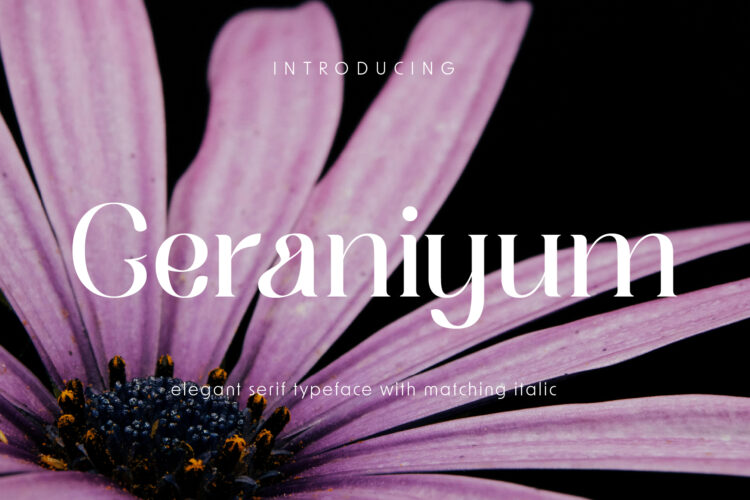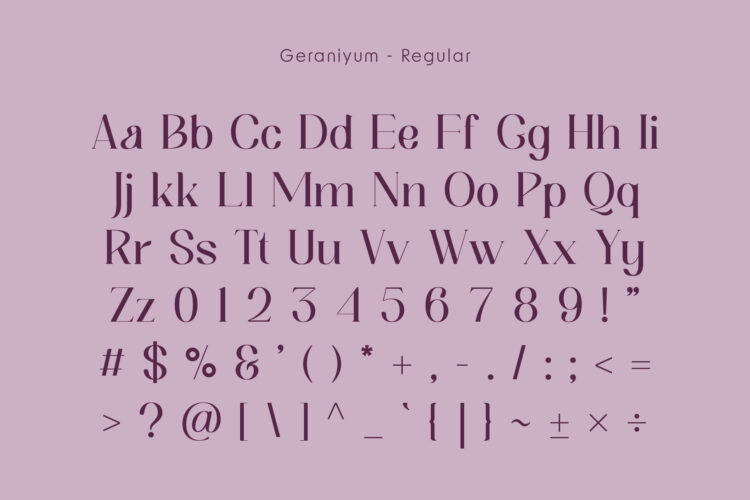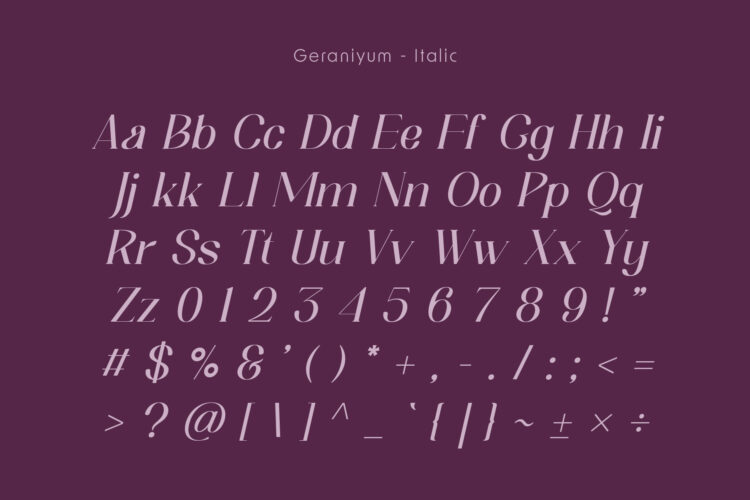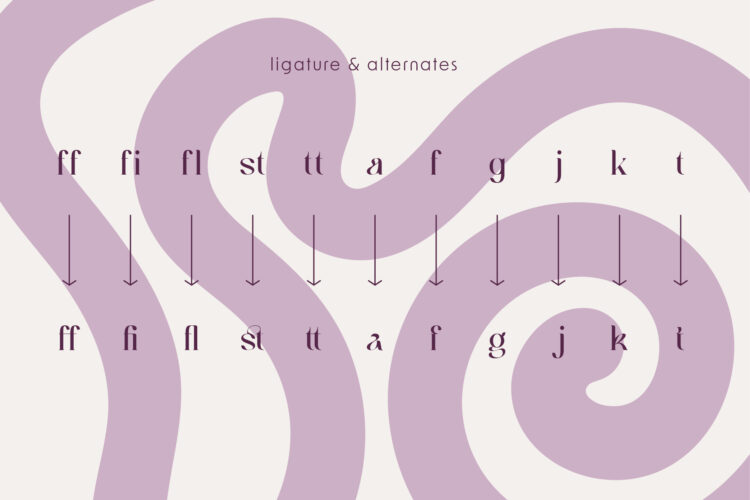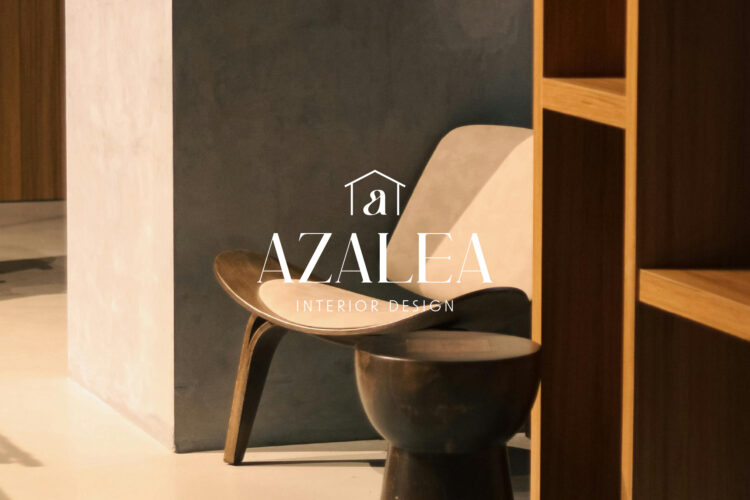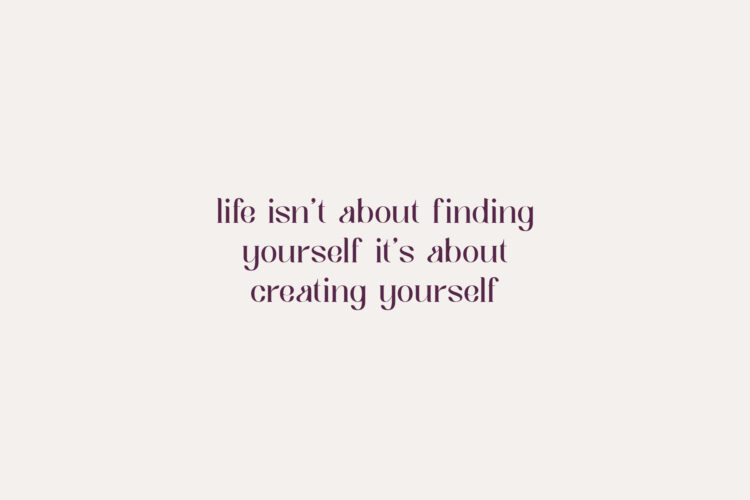
Meet Geraniyum — a sleek serif font that brings minimalist charm to your designs. Its clean lines and elegant curves make it perfect for headlines and body text alike. Whether you’re working on fashion magazines, greeting cards, logos, or beauty‑brand visuals, Geraniyum ensures your work stays readable and stylish.
Geraniyum includes uppercase and lowercase letters, numbers, and basic punctuation. You also get italic styles for every character to expand your creative options. The font comes in OTF, TTF and WOFF formats so you can use it in print or online with ease.
Add Geraniyum to your toolkit and let your designs glow with subtle sophistication.